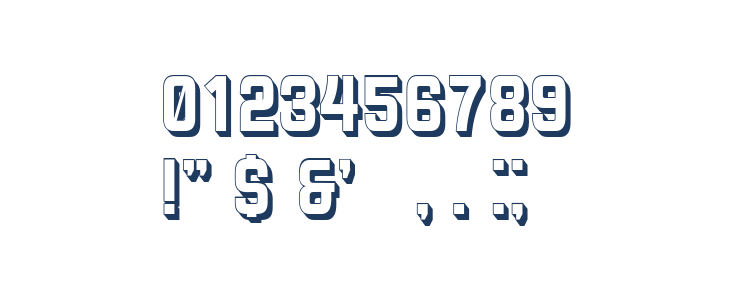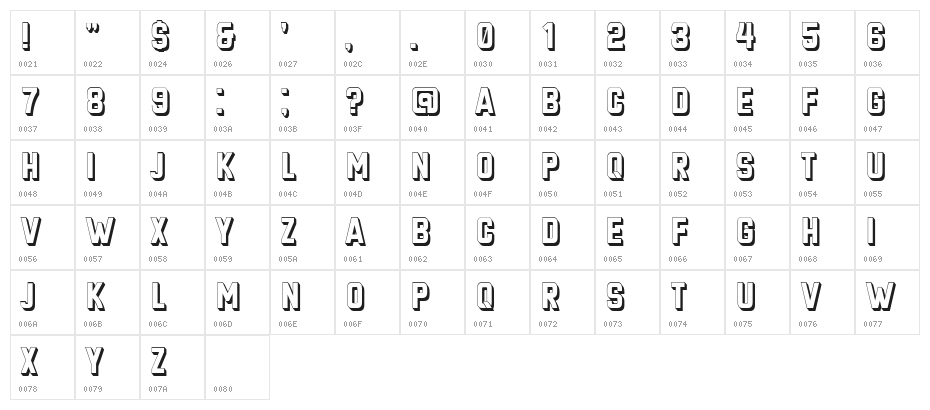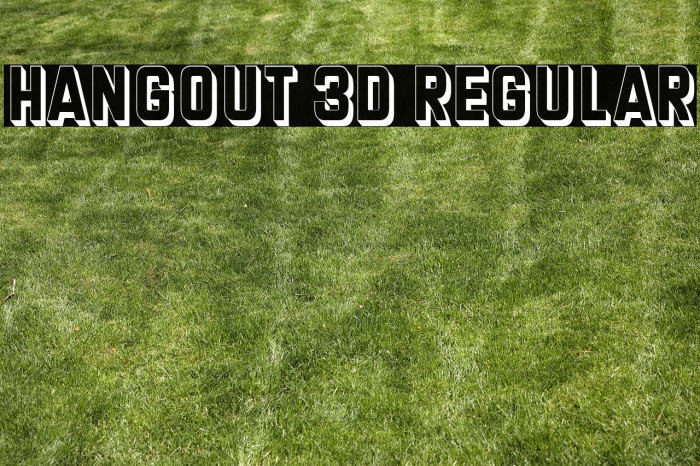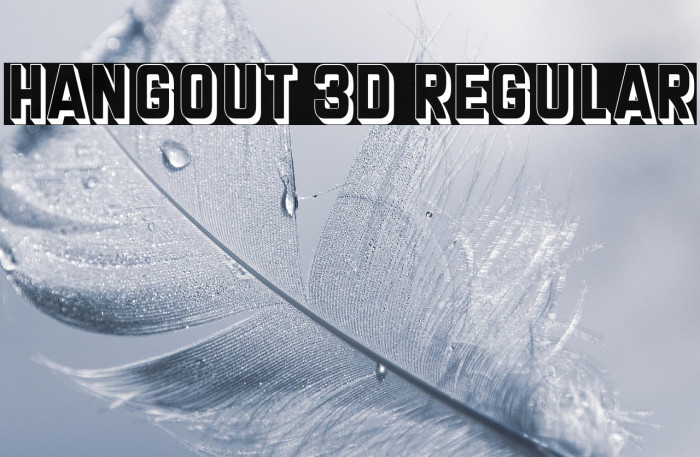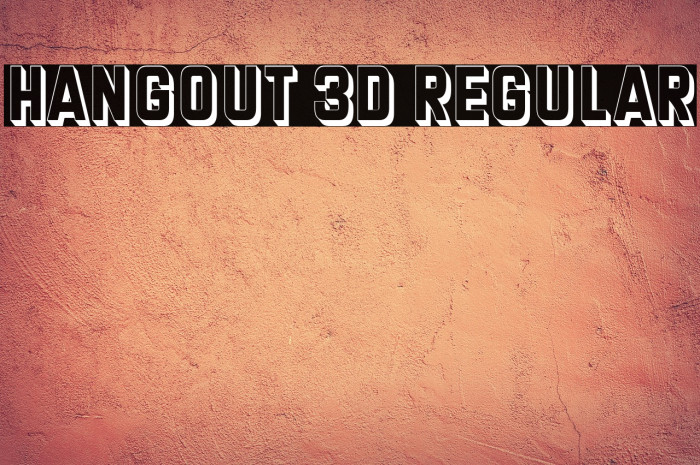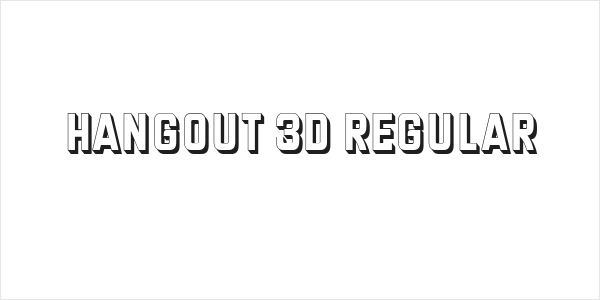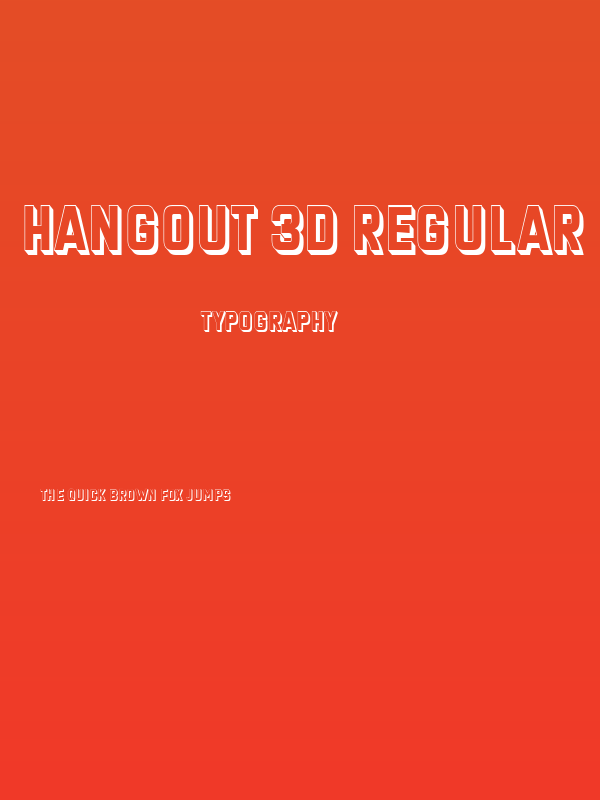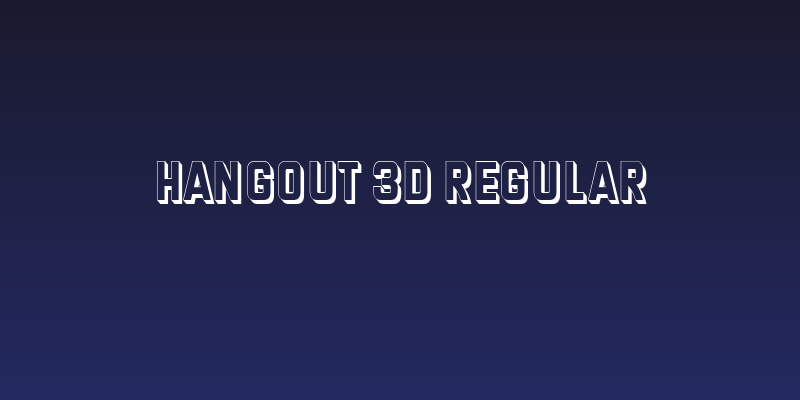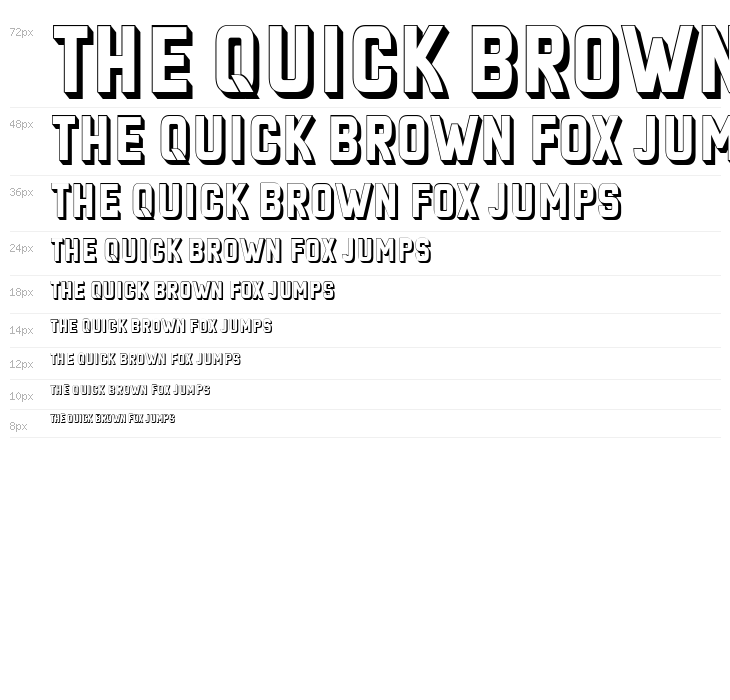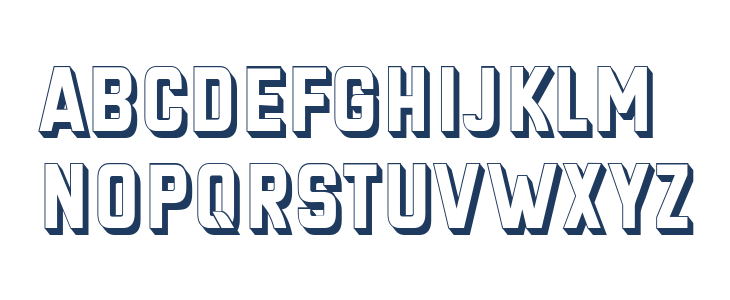
Hangout 3D Regular Font
Hangout 3D Regular Description
This font features a bold, three-dimensional design that gives each character a striking and impactful appearance. The letters are capitalized and have a shadow effect that enhances their 3D look, making them stand out prominently. The style is clean and geometric, with sharp edges and a modern aesthetic. The numbers and special characters follow the same design principles, ensuring consistency across all elements. This font is ideal for projects that require a bold statement and a contemporary feel.